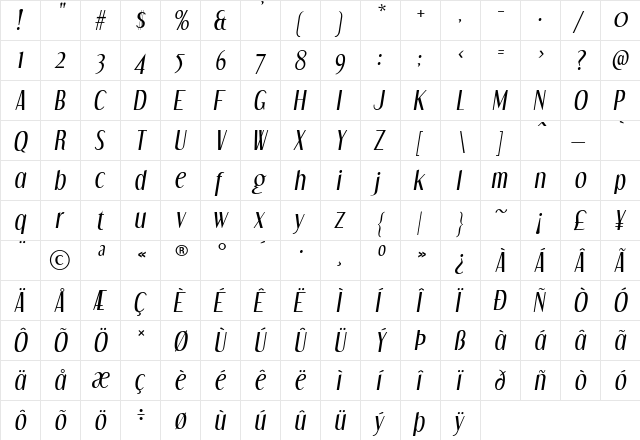
Dream Orphans Italic
Design Context for Dream Orphans Typeface
Dream Orphans takes a measured approach to typography — its balanced proportions and neutral character make it a reliable workhorse for both digital and print work. The dynamic lean of this cut emphasises speed and emphasis in any layout.
Pro Tip: Try Dream Orphans for annotation and caption copy alongside an upright companion — the contrast in angle creates a dynamic but ordered typographic system.